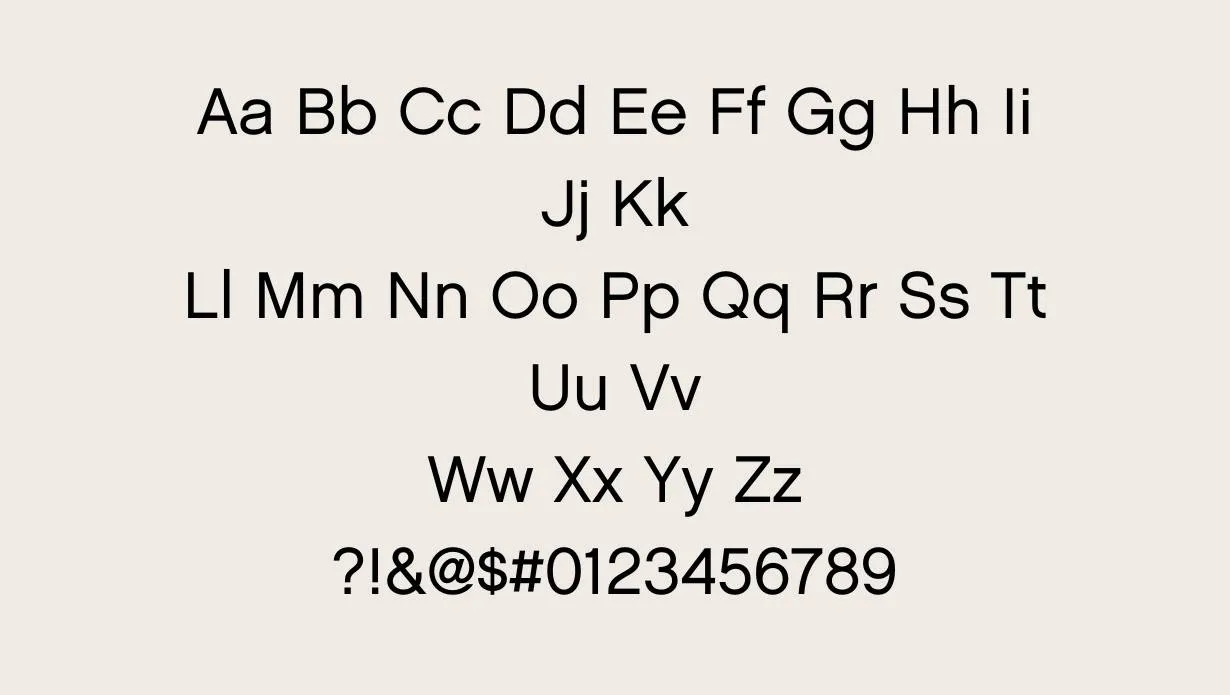
Chalet London Nineteen Sixty Font has a retro and artistic style. Its unique, stylized letters evoke a sense of the past. This font commonly comes in TTF and OTF file formats, ensuring smooth usage across various programs.
| Name | Chalet London Nineteen Sixty Font |
| Designer | Christian Schwartz |
It’s often used in designs that require a vintage touch or creative layouts, as its distinct appearance adds a sense of history and artistic flair to the text. Whether used in posters or artistic endeavors, this font brings a nostalgic and creative feel to the writing.